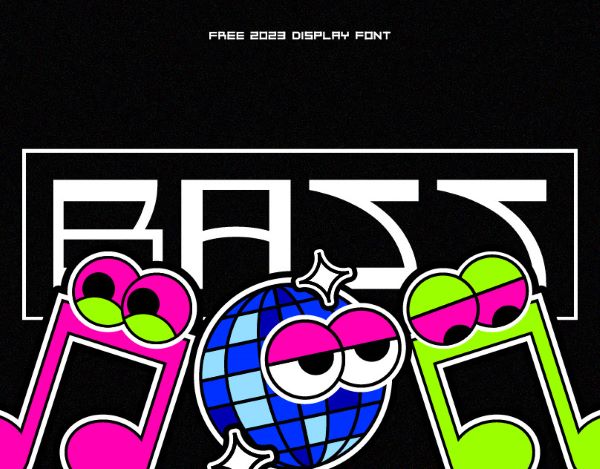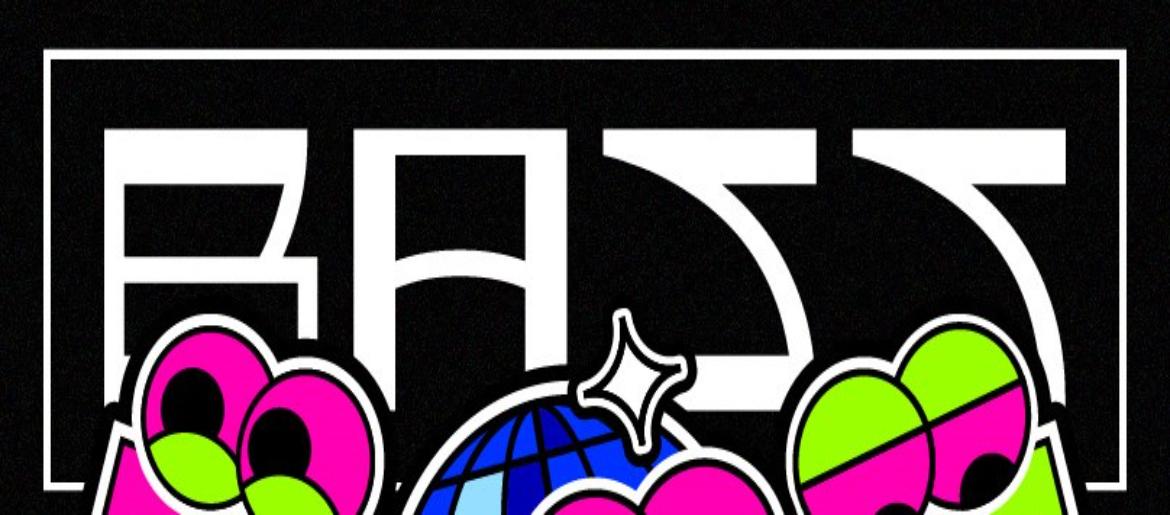
BASS Font
BASS by Mariana Gonçalves de Souza is a free display typeface born from a genuine passion for electronic music and the visual culture that surrounds it. Developed as an academic research project, it offers two glyph variations per character — a dual design system that brings unexpected typographic flexibility to a font built for headlines, titles, and subtitles of independent cultural productions. Its letterforms carry the energy and graphic confidence of the dancefloor poster aesthetic: bold, readable, and unapologetically expressive. Free for personal and commercial use.